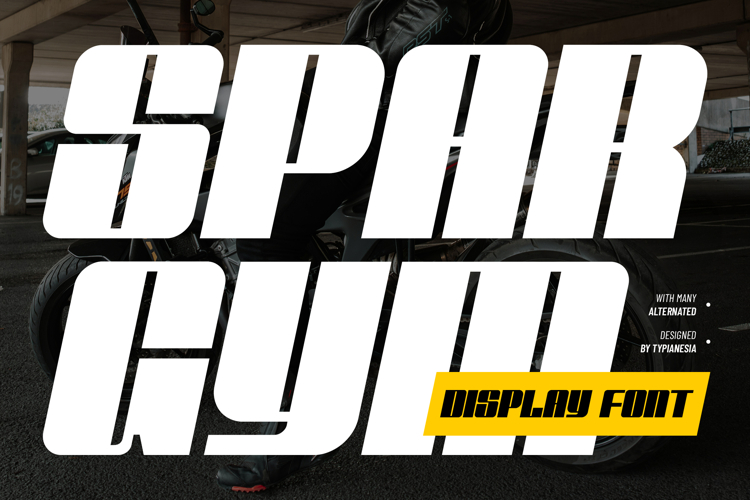
Spargym - Bold & Modern Italic Geometric Display Font
Spargym - Bold & Modern Italic Geometric Display Font - Sports Tech and Dynamic Branding.
Spargym is a bold and modern italic geometric display font, designed to convey strength, speed, and a contemporary feel. Its distinct letterforms and angular cuts make it highly suitable for projects requiring a strong visual presence, such as sports branding, technology interfaces, posters, merchandise, advertising campaigns, gaming titles, energetic logos, dynamic headlines and any project that needs to stand out with a confident and energetic attitude. This font offers versatile alternative styles, providing creative flexibility for various applications. With multilingual support, Spargym ensures your message is clear and impactful across different platforms.